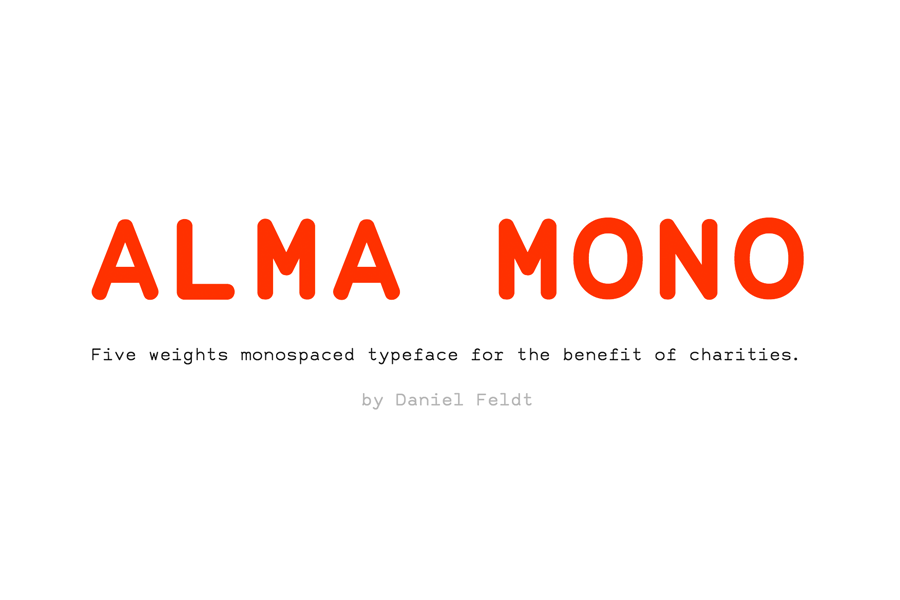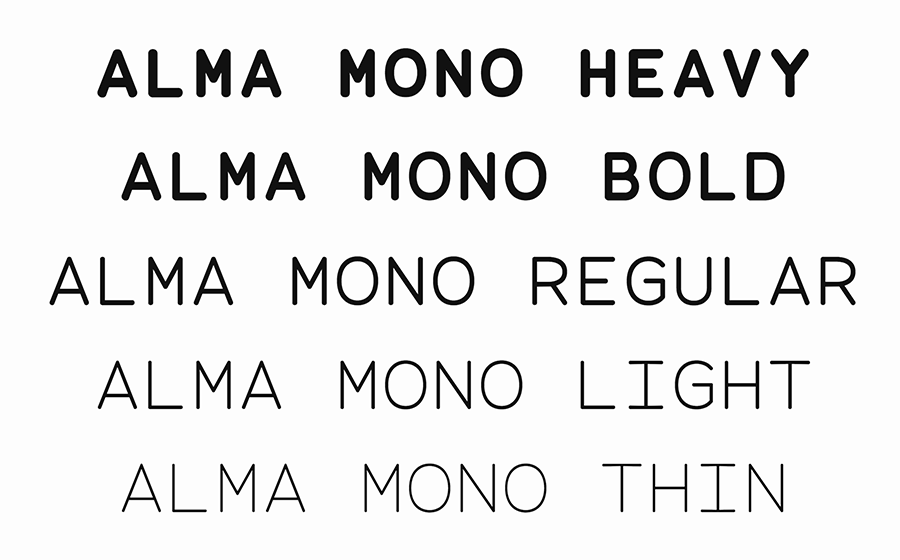
Alma Mono is a monospace font family that was created for the benefit of charities. It comes with 5 weights, from thin to heavy. You can downlaod this font for free for personal projects only, for commercial license, it started with $50. The money you paid will be donated to relief and charity efforts.
- Designer: Daniel Feldt
- Styles: 5
- Category: Monospace